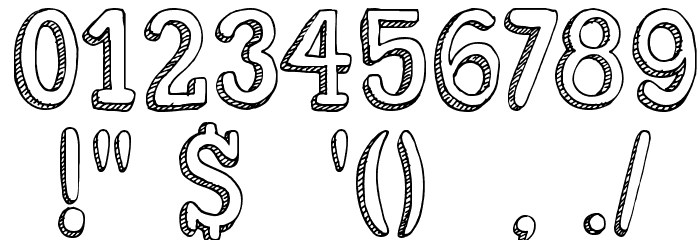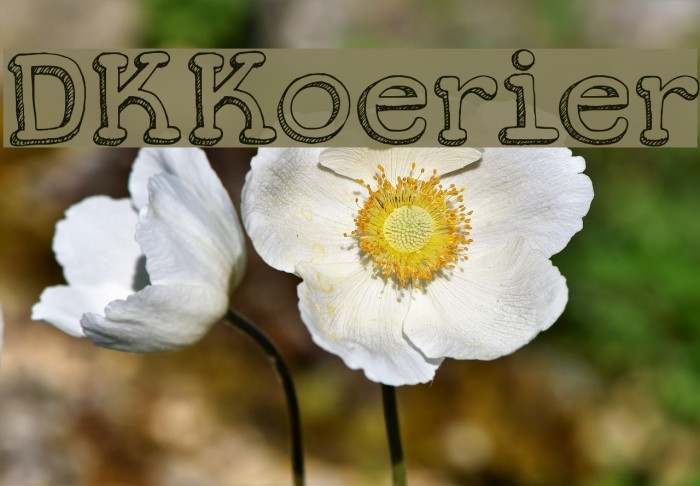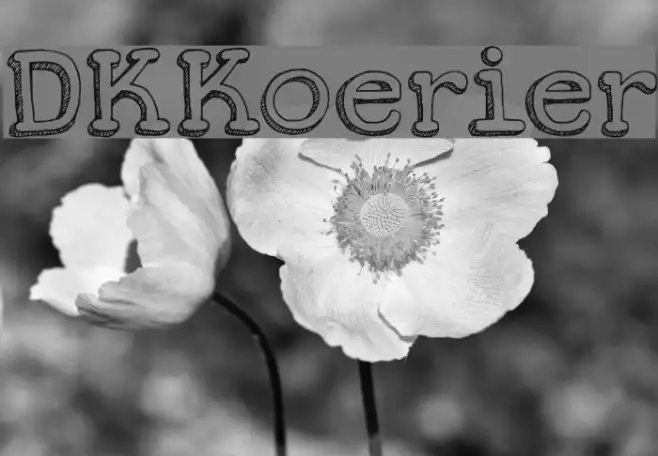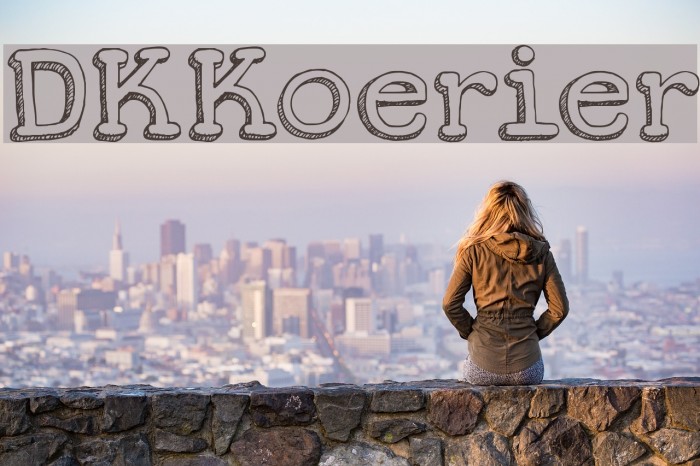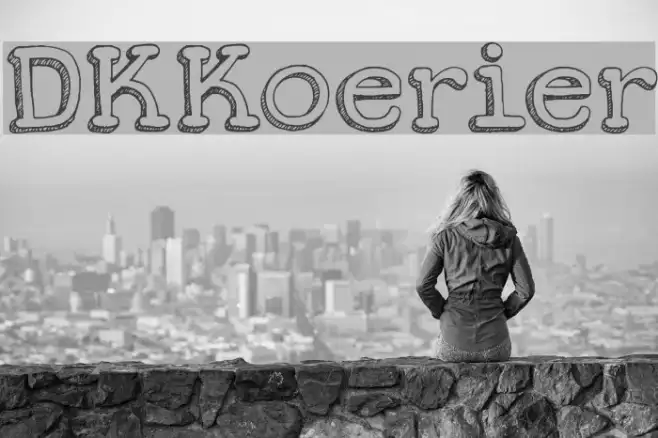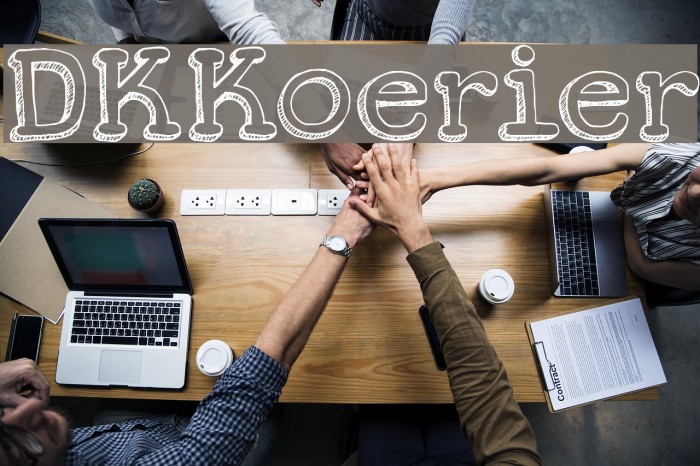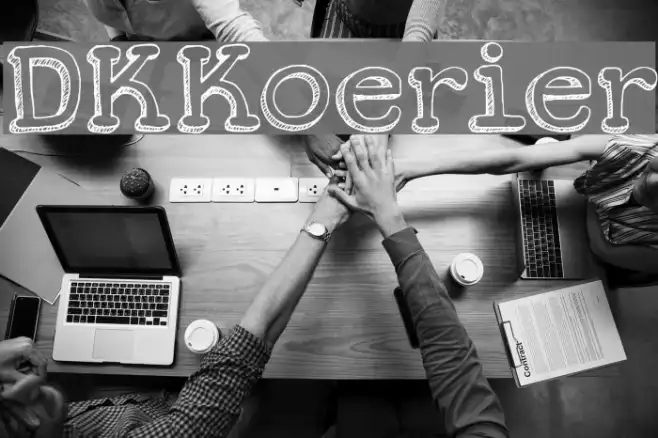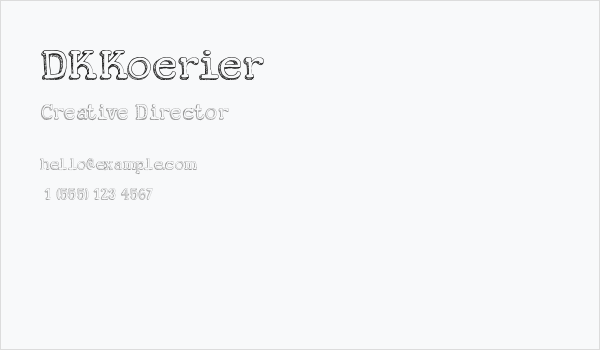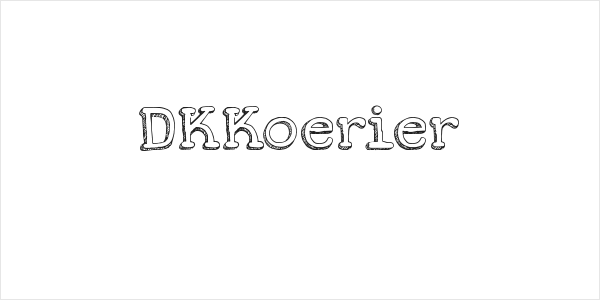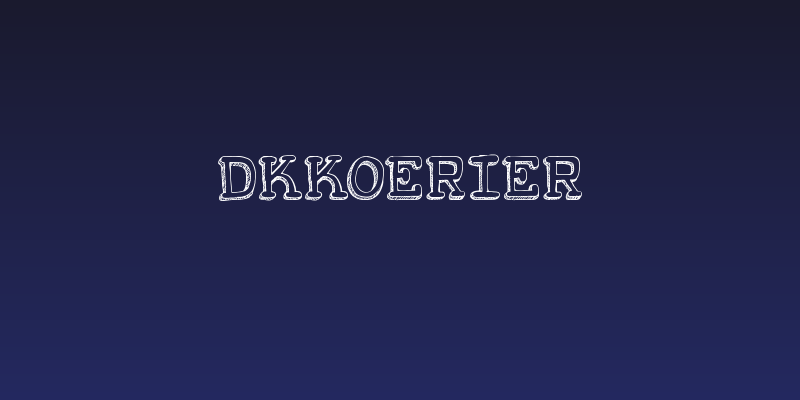
DKKoerier Font
DKKoerier Description
This font features a playful, hand-drawn style with a textured, sketch-like appearance. Each character is outlined and filled with a series of diagonal lines, giving it a unique, artistic look. The uppercase and lowercase letters maintain consistent proportions, while the numbers and special characters follow the same design principles. The font's whimsical nature makes it ideal for creative projects, adding a touch of fun and personality. Its distinct style is both eye-catching and versatile, suitable for various design applications.